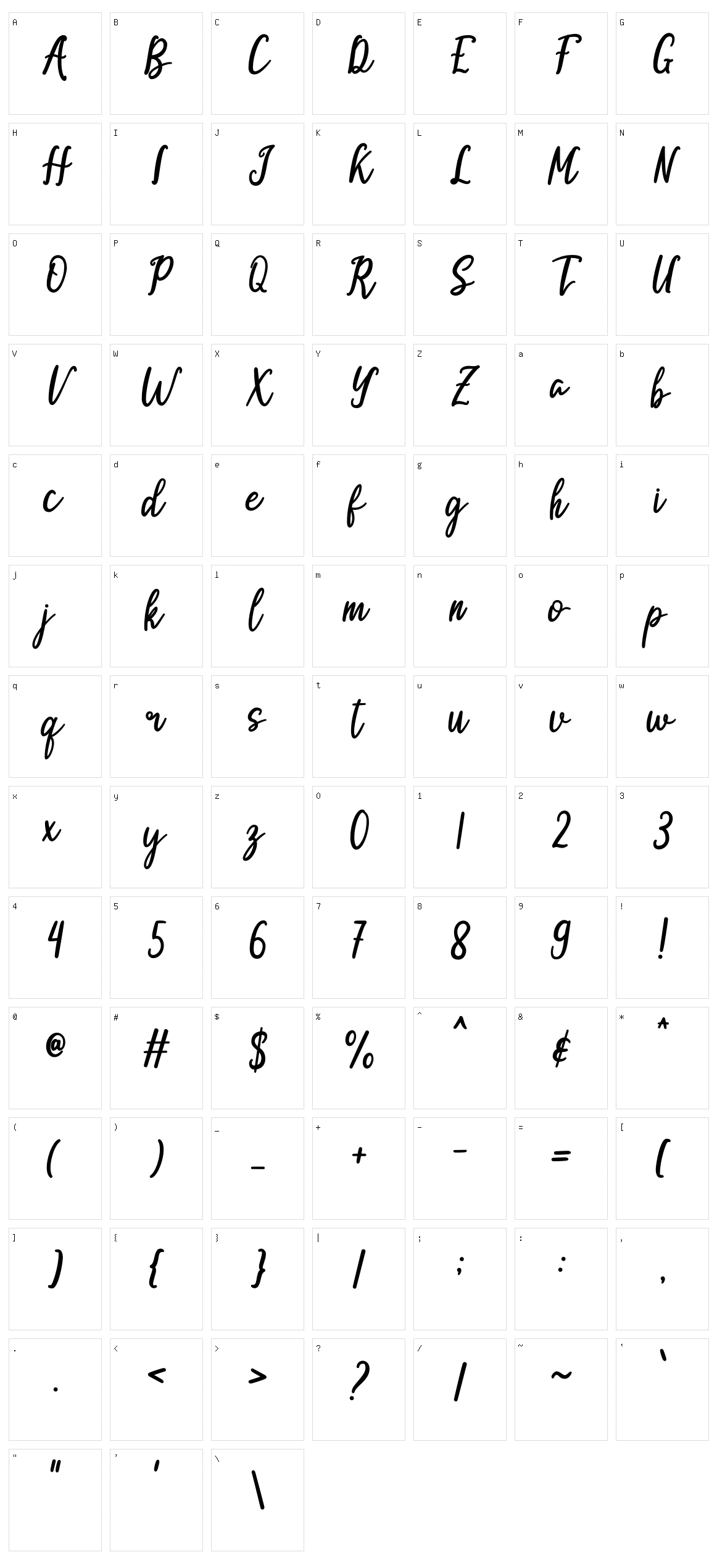
The free font Sinta Bella is carefully designed by Graphix Line Studio, showcasing a thoughtful balance of creativity and usability and falls under the Script font style. When you download the ZIP file, it contains only 218.26 KB of font files, making it lightweight and quick to download. Please review the license details below to understand permitted usage and distribution rights. If license information is not available, we recommend using this font for personal projects only or contacting the author directly for commercial usage permissions.